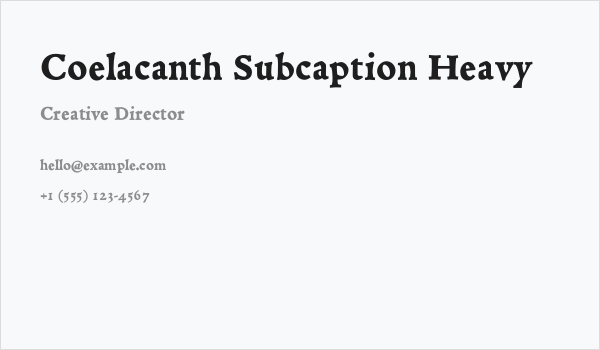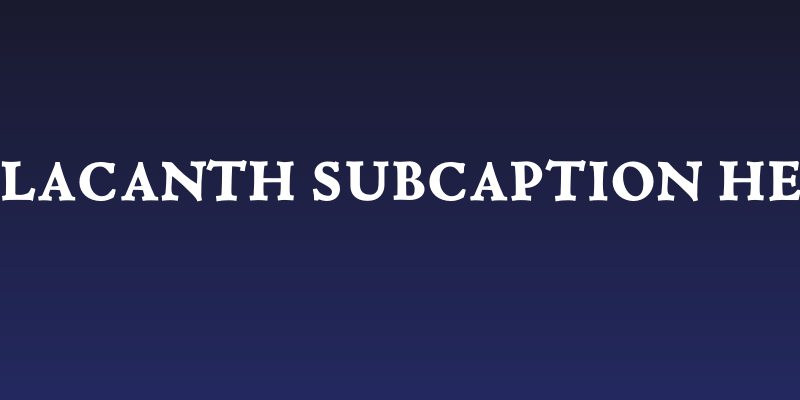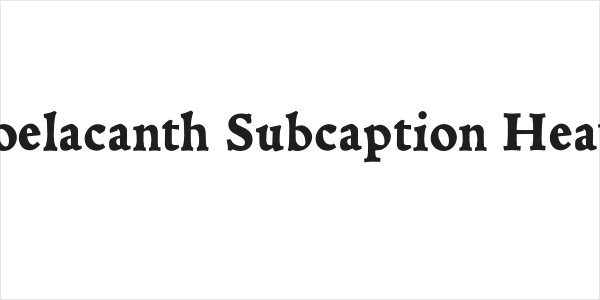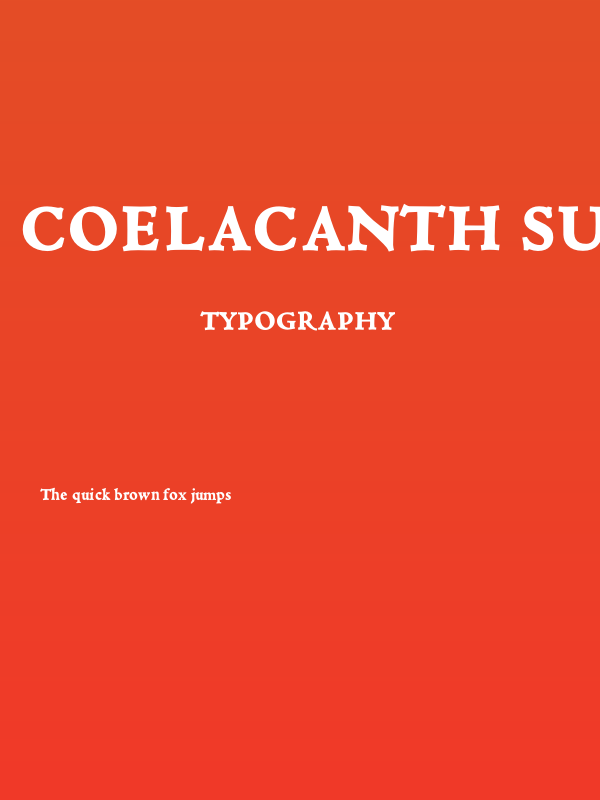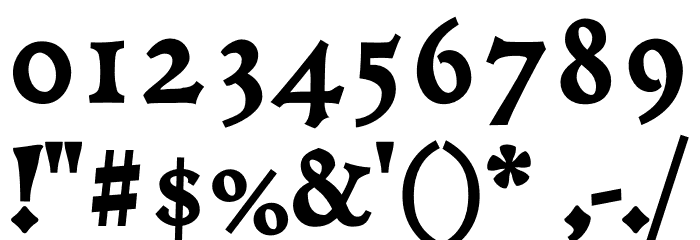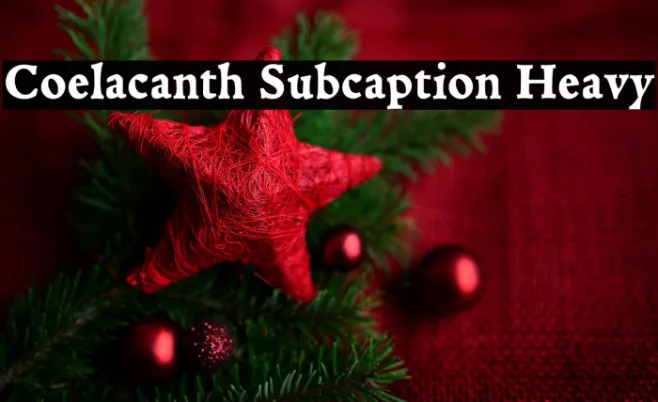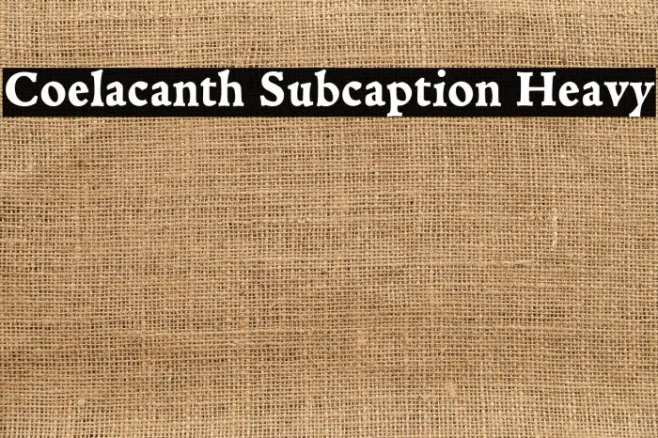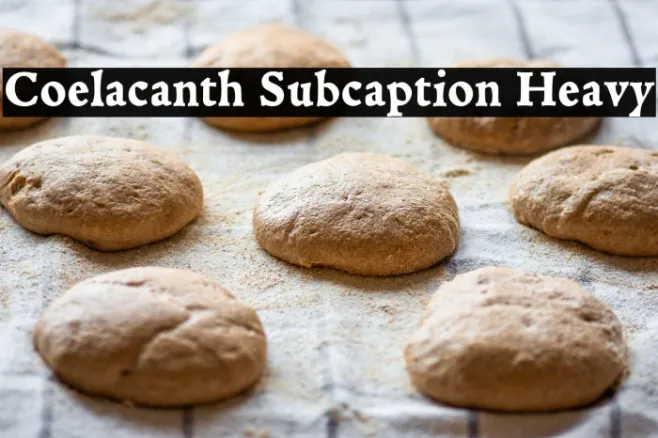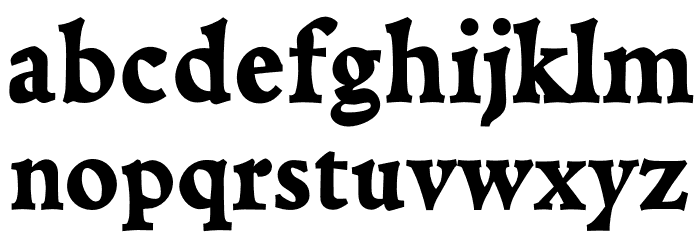
Coelacanth Subcaption Heavy Font
Coelacanth Subcaption Heavy Description
This font features a bold and distinctive style with a strong presence. The characters are crafted with a unique flair, showcasing sharp, angular serifs and a slightly condensed form. The uppercase letters exhibit a commanding presence, while the lowercase letters maintain a consistent weight and style. The numerals are robust and easily legible, complementing the overall design. Special characters are designed with the same boldness, ensuring they stand out. This font's heavy weight and unique character shapes make it ideal for impactful designs.
| Proposed Projects | Ideal for headlines, posters, branding, and any design requiring a bold statement. |